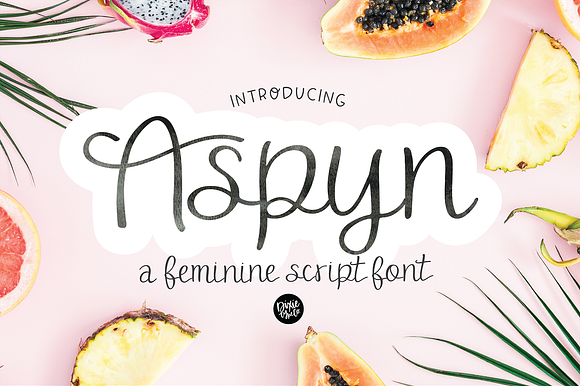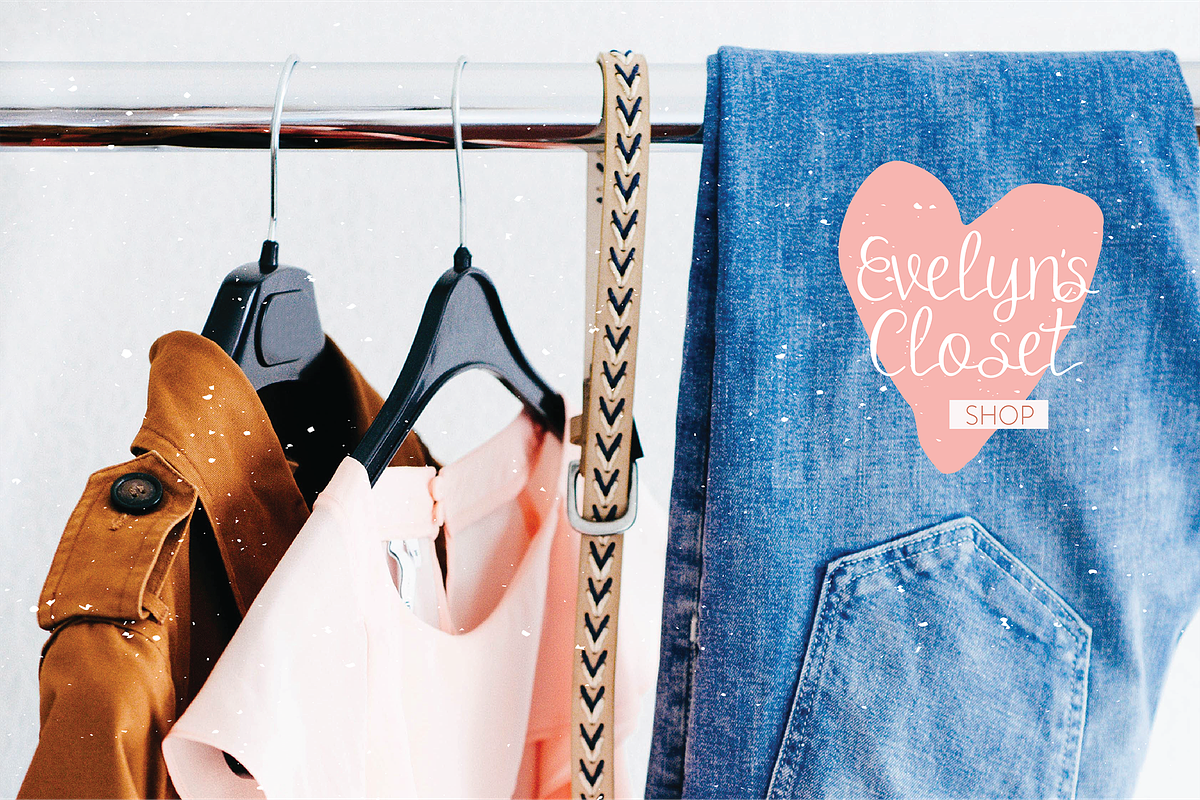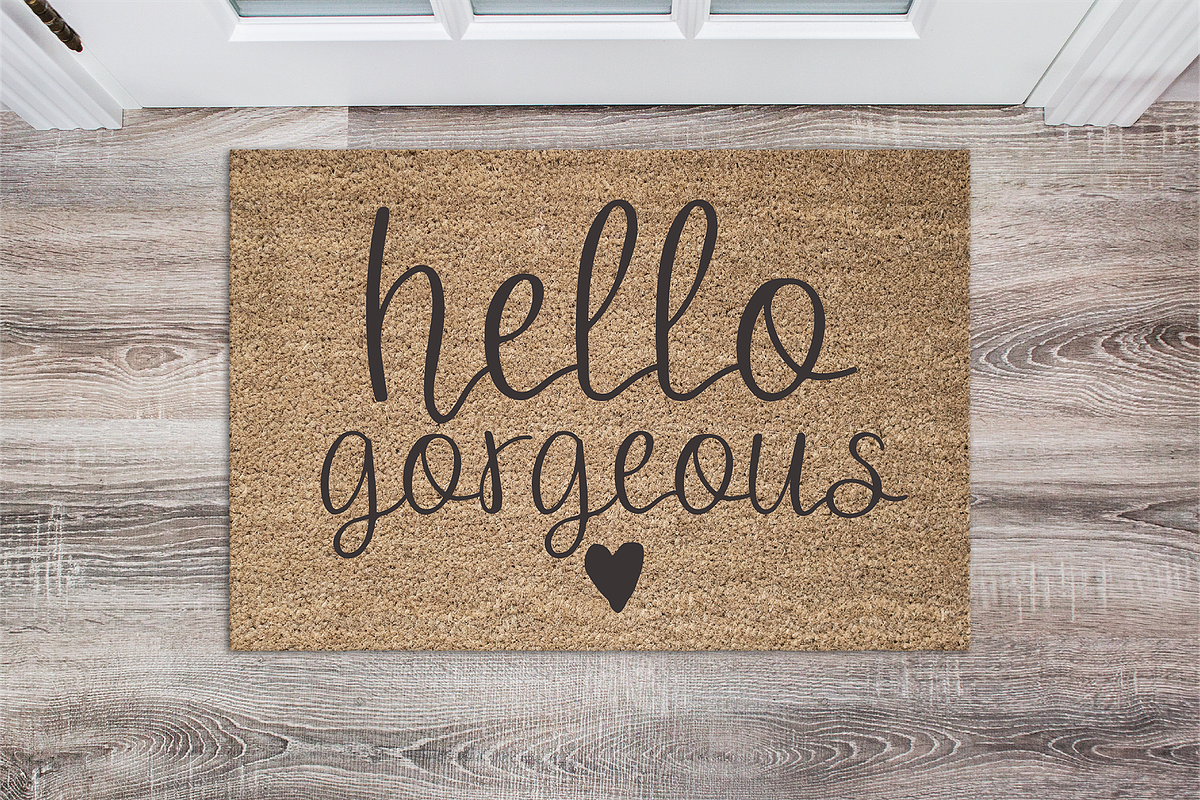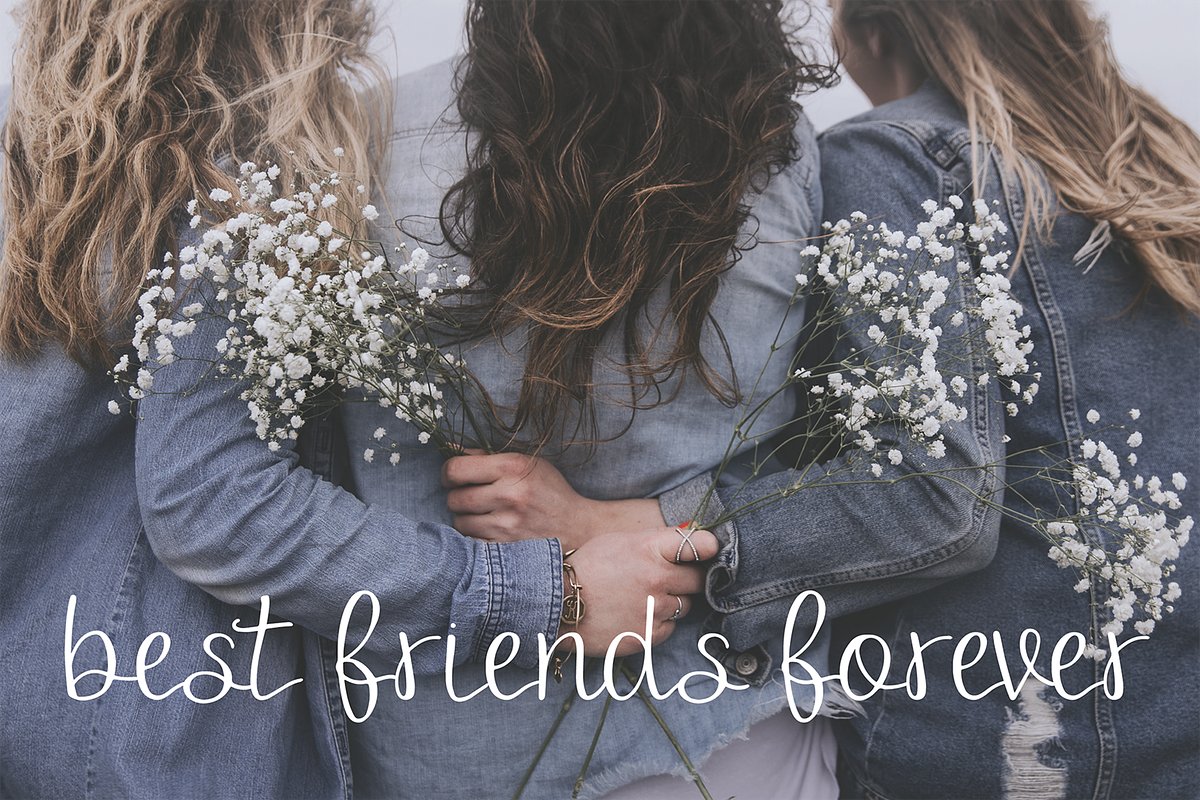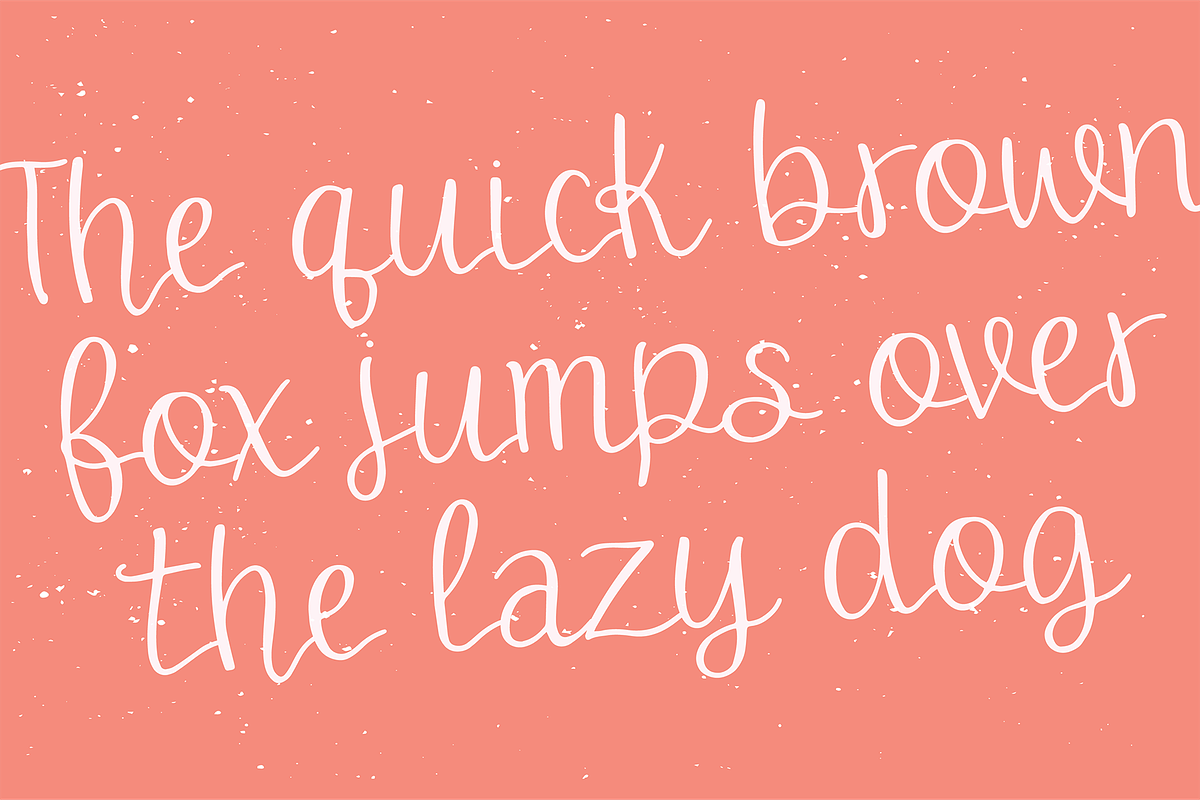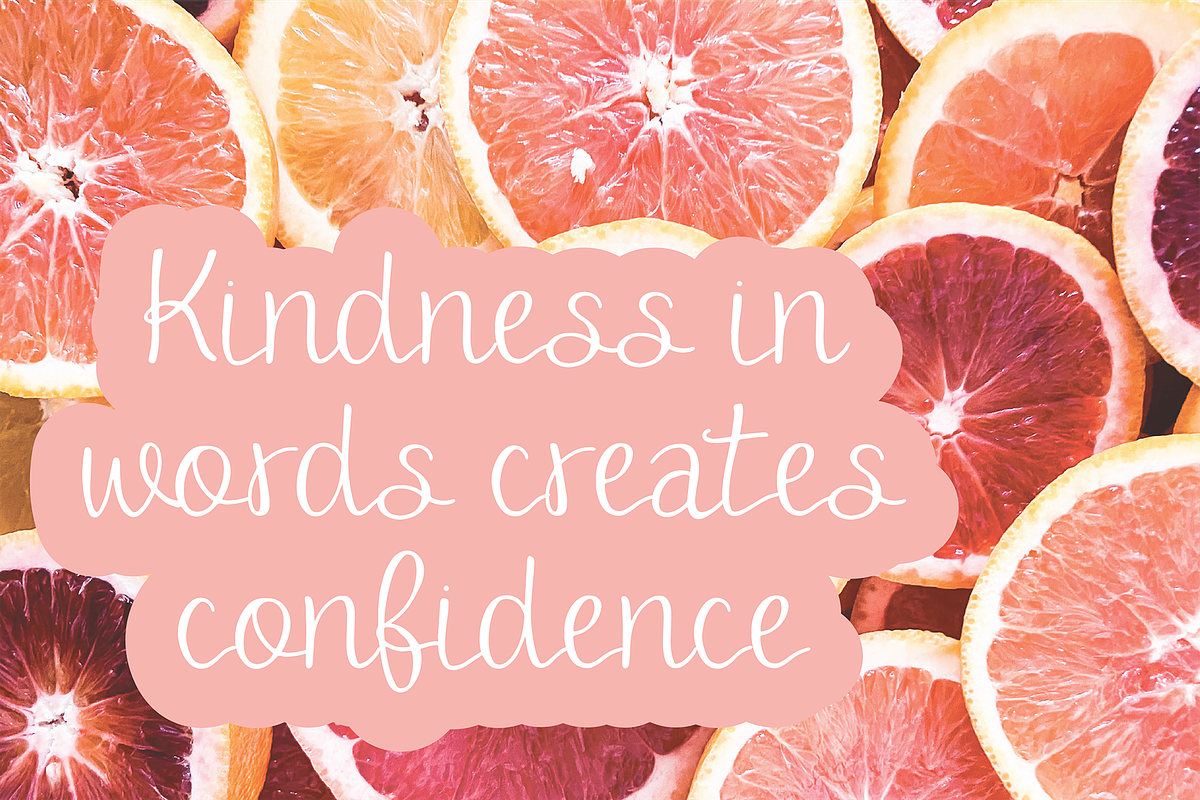
ASPYN a Feminine Script Font
Aspyn is a thin, bouncy, feminine brush pen font.
Font includes: Upper and lowercase glyphs, numbers, punctuation, and language support of the following characters: ÁÂÃÄÅÇÐÈÉÊËÌ Í Î Ï ÑØÒÓÔÕÖÙÜÚÛẂŴẄẀÝỲáâãäåçèéêëì í î ï ñøòóôõöùüúûŵýỳ